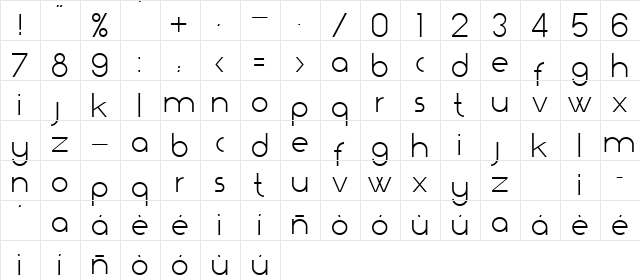
ZARAUTZ Light Font Preview
ZARAUTZ Light
Design Context for ZARAUTZ Typeface
ZARAUTZ is a composed and adaptable typeface that performs quietly and consistently across a wide range of design contexts. Its slender proportions lend an understated elegance to any composition.